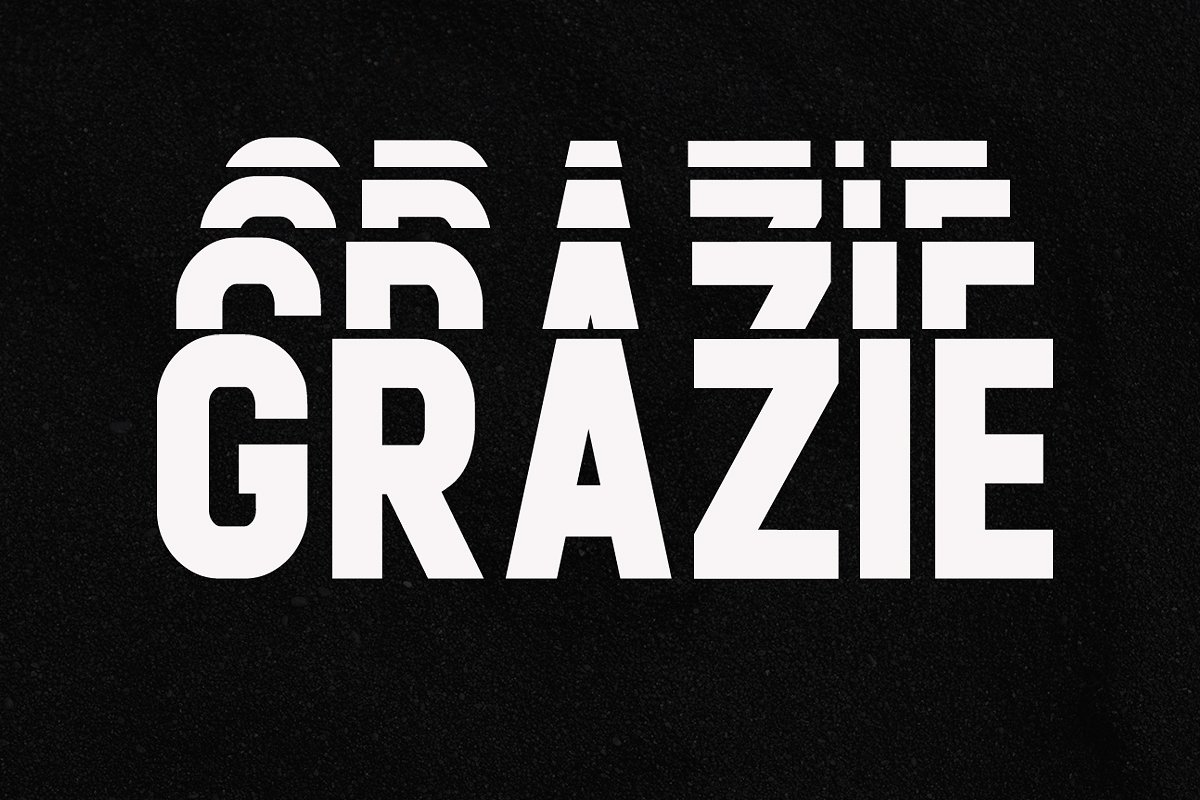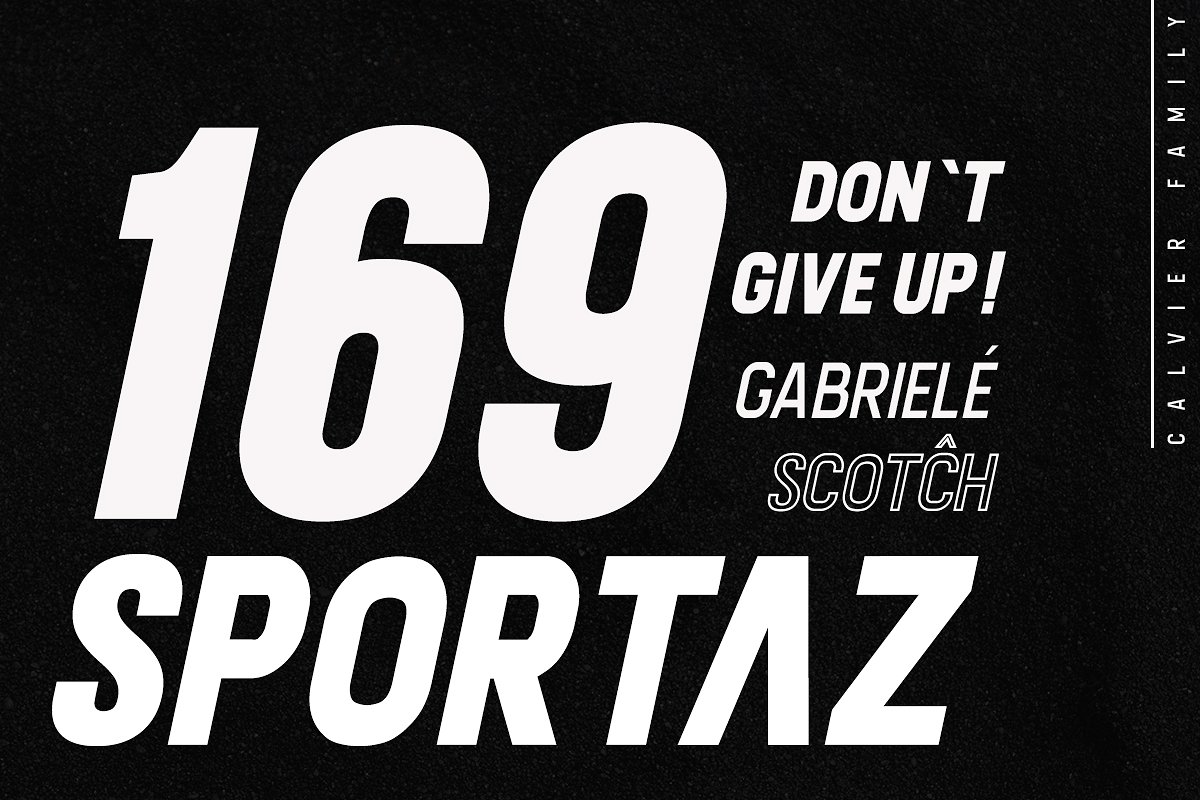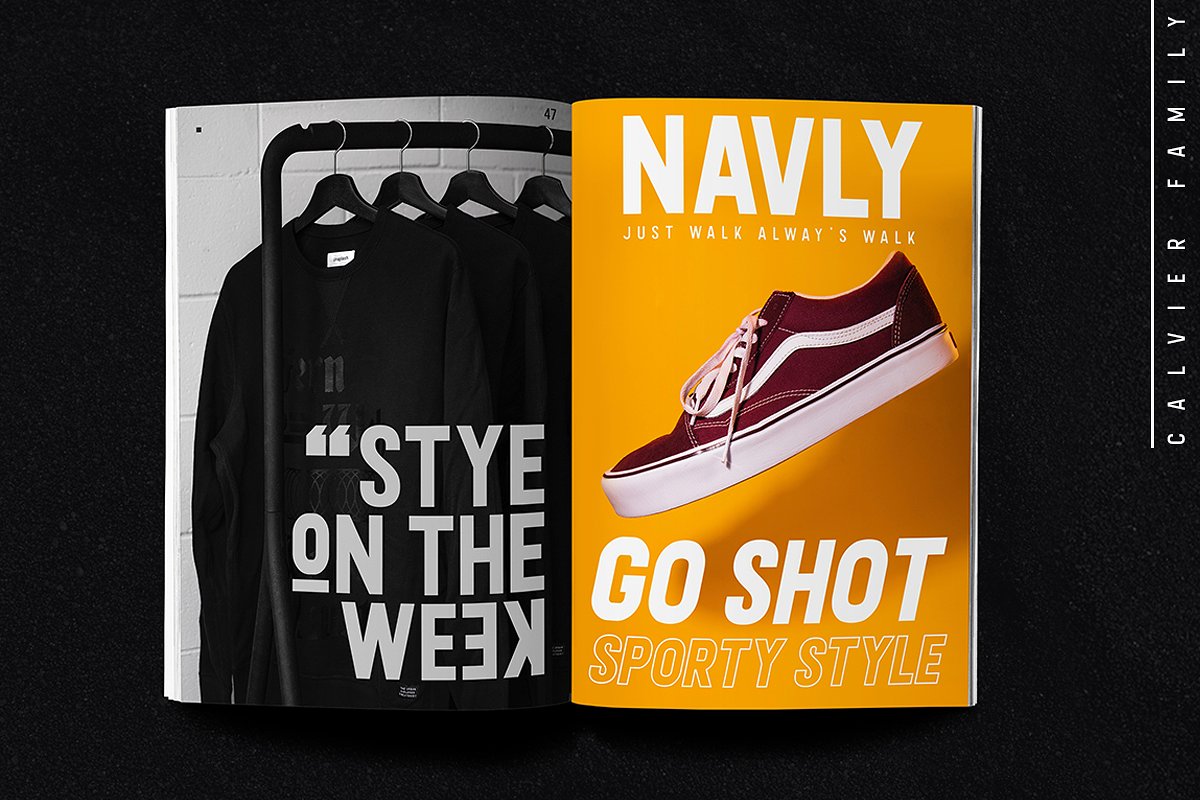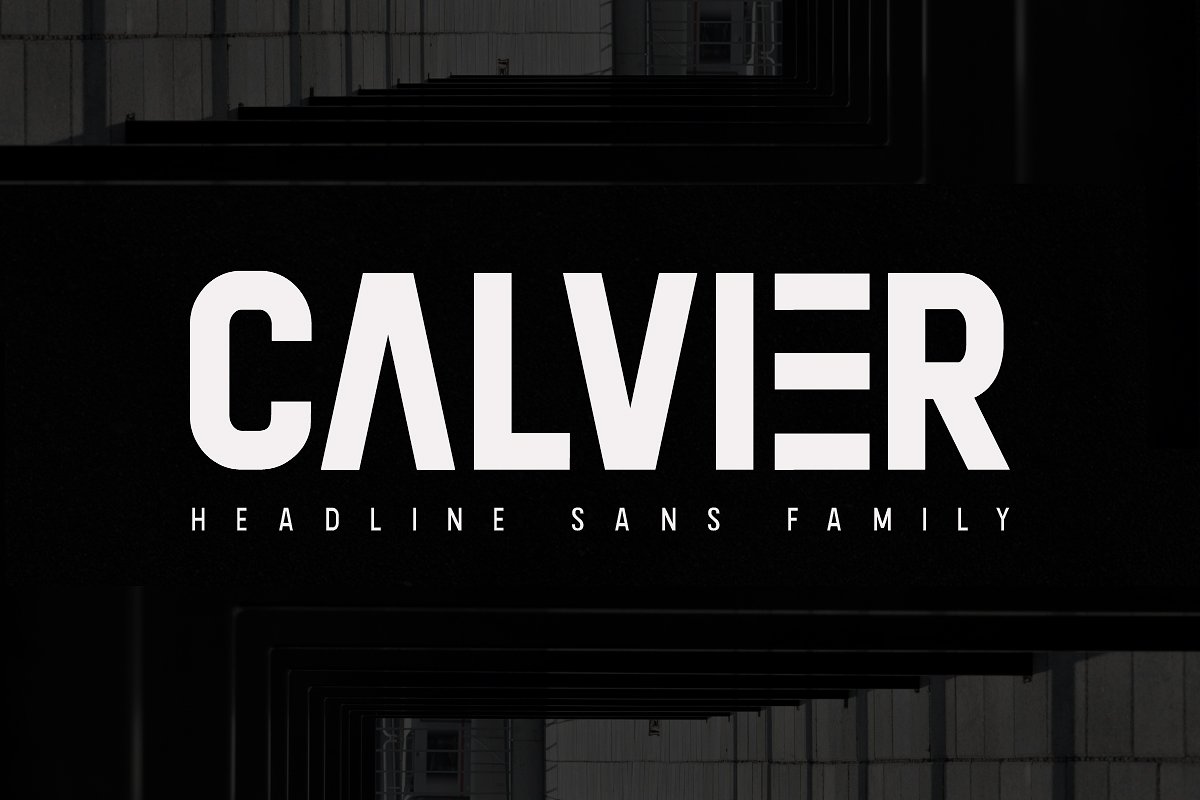
Calvier Sans Font Family
Calvier is a hugely versatile sans serif design to provide a very clear and modern appearance. It was inspired by old, classic fonts that were elegantly designed. Designed for an impactful and stylish visual impression especially on Headline,logos and posters. Calvier’s has semi humanist and semi geometric details and extensive language support Calvier’s have four weights Regular,italic and hollow style Calvier Sans Family makes a strong impression in print, video,headlines and social media – always be the best choice and easy to read clear and comfortable whether he is paired or stand alone as the main topic in your design.